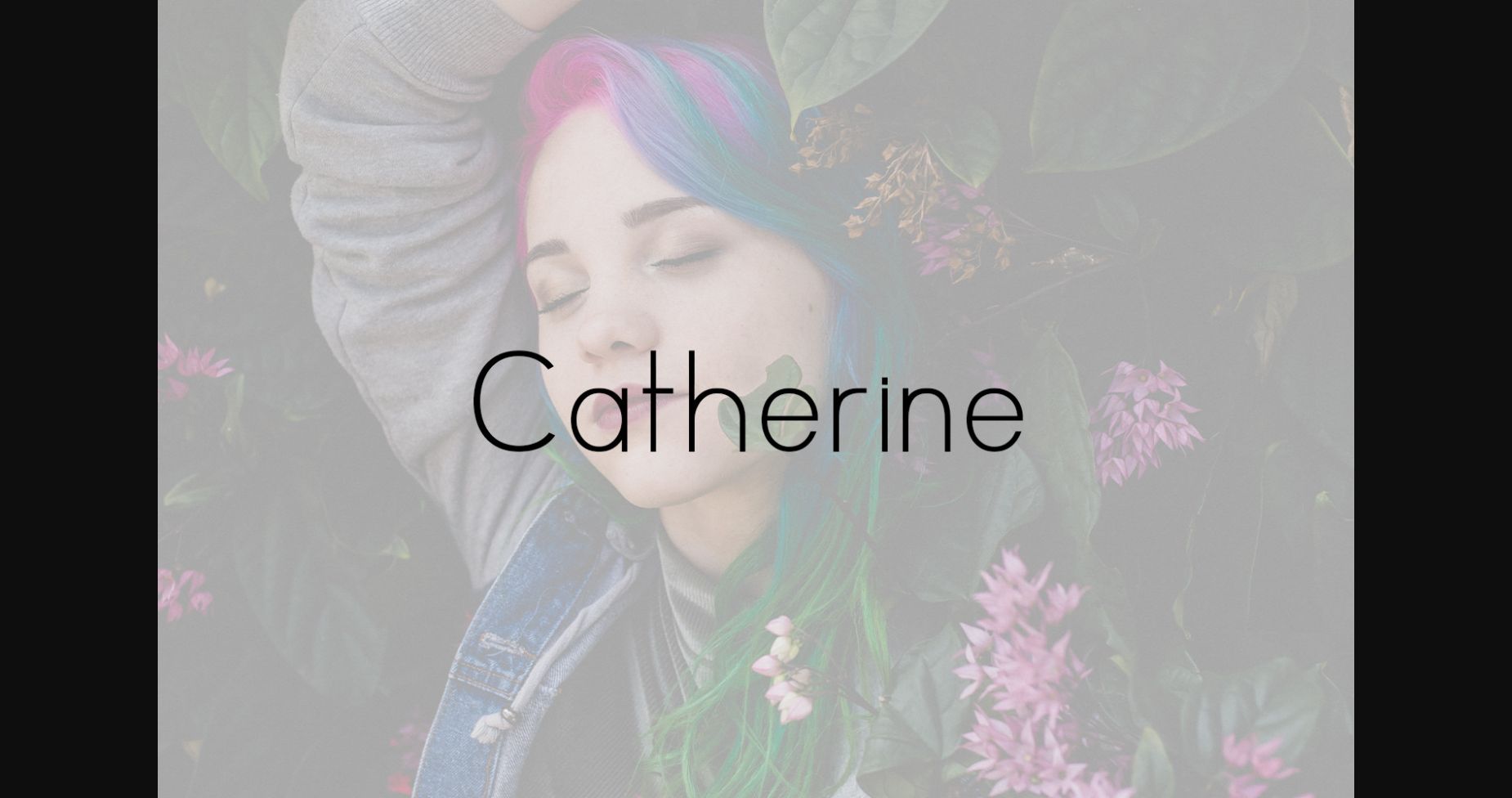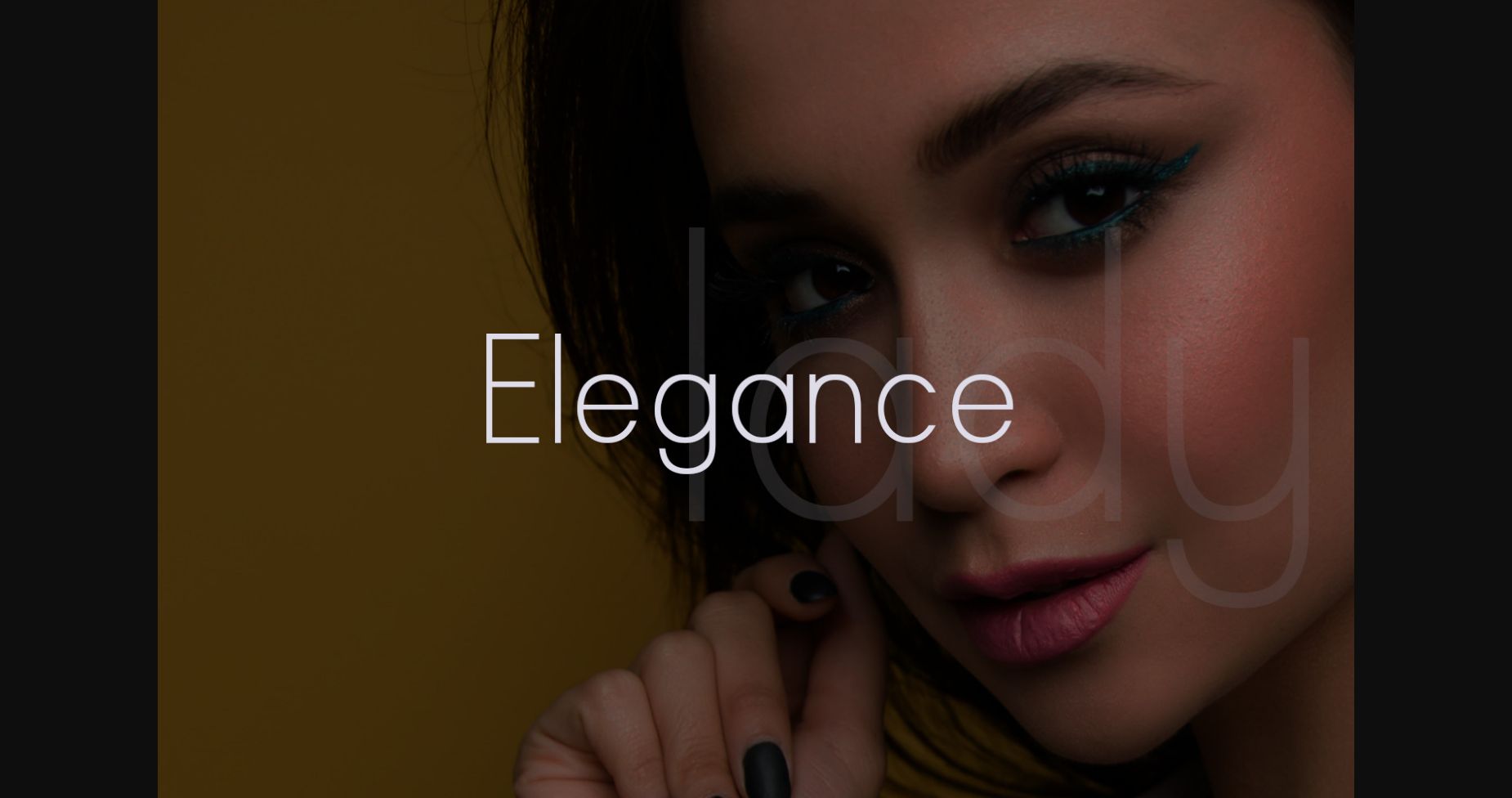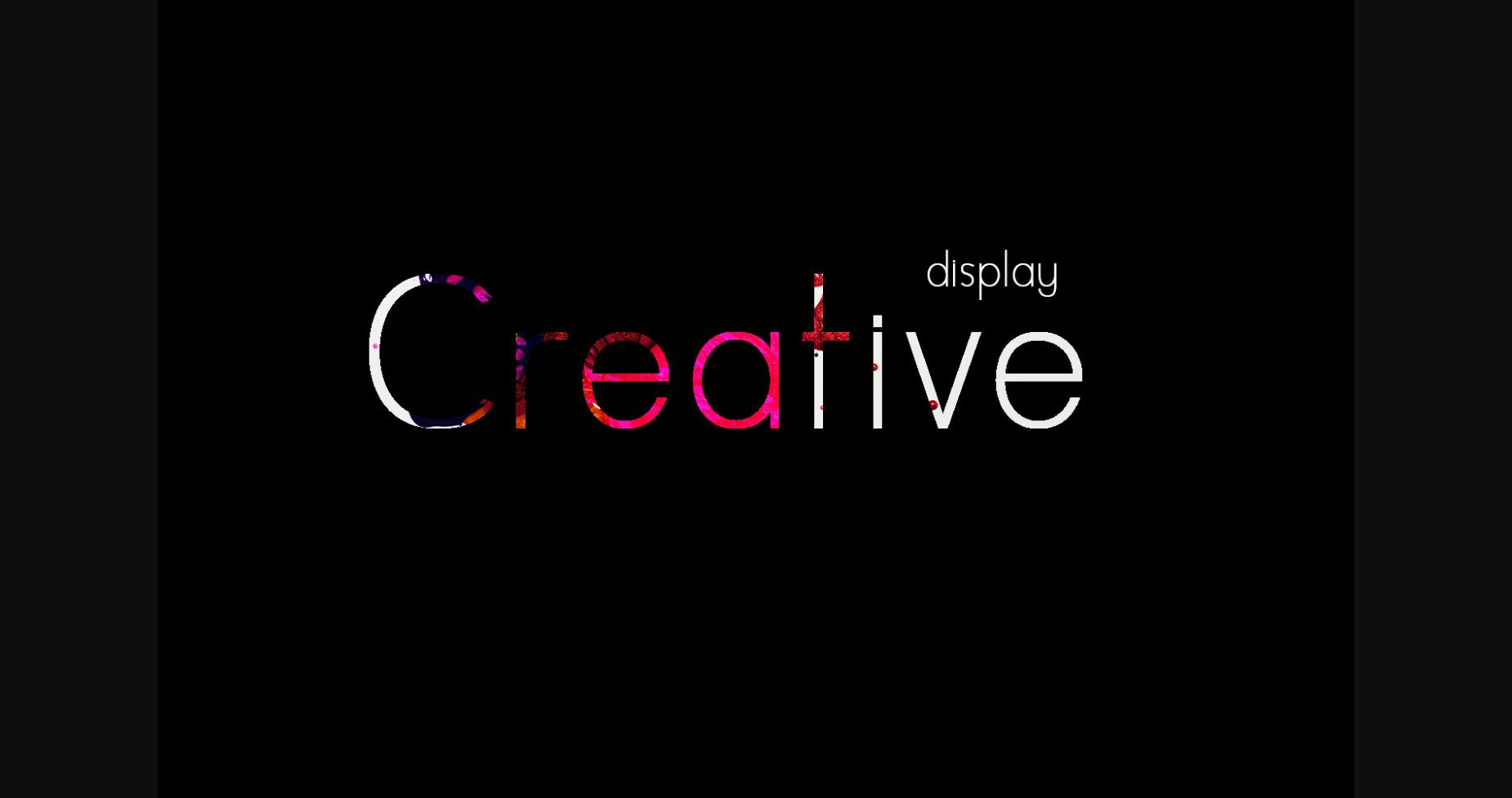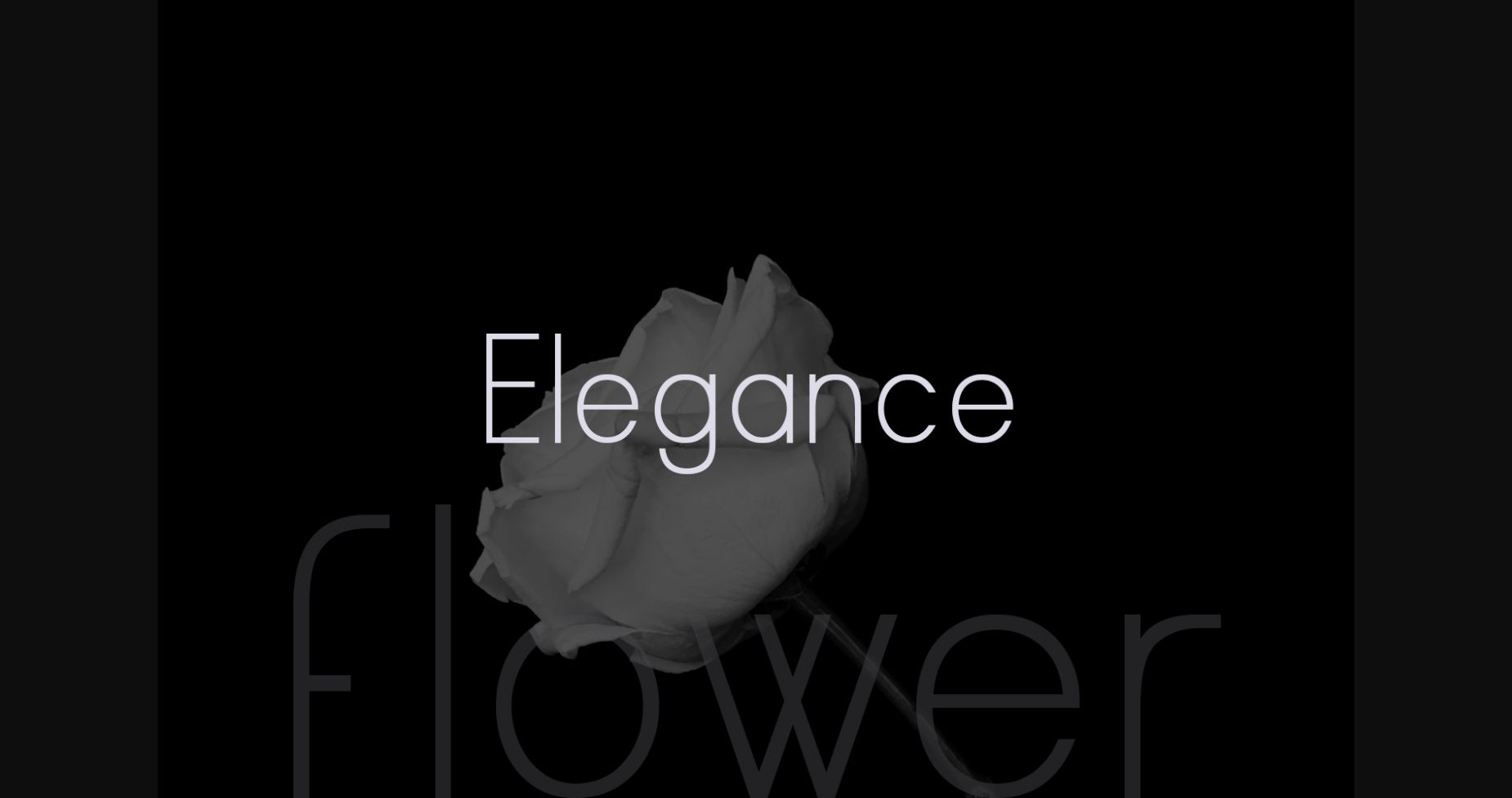
Catherine is a thin and simple lettered sans serif font. Suitable to a wide variety of designs due to its neat style, this font has the potential to become your favorite go-to font, no matter the occasion!